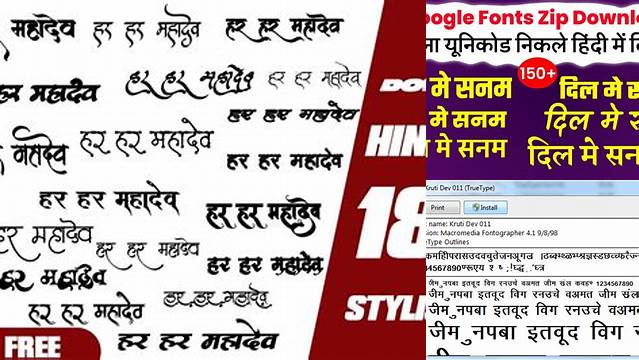
Are you looking to download Hindi TTF fonts? If you're a designer, a content creator working with Hindi text, or simply someone who loves the beauty of the Devanagari script, having a good collection of Hindi fonts is essential. In this comprehensive guide, we'll delve into everything you need to know about Hindi TTF fonts, including where to find them, how to install them, and tips for choosing the right fonts for your projects. So, guys, let's get started and explore the world of Hindi typography!
Why Hindi TTF Fonts Matter
Before we dive into the download process, let's understand why Hindi TTF fonts are so important. TTF (TrueType Font) is a common font format that ensures your text looks consistent across different devices and platforms. For Hindi, a language rich in its script and cultural heritage, the right font can make a world of difference in conveying the intended message and aesthetic. Using the right Hindi font ensures that your content is not only readable but also visually appealing. Think about it – the font you choose can evoke different emotions and set a particular tone, whether it's for a formal document, a creative design, or a social media post. The clarity and legibility provided by high-quality TTF fonts ensure that your message is communicated effectively, without any distractions caused by poorly rendered characters or inconsistent styling. Moreover, having a diverse collection of fonts allows you to add personality and flair to your work, making it stand out and capture the attention of your audience. From elegant and traditional styles to modern and playful designs, the possibilities are endless when you have access to a wide range of Hindi TTF fonts. So, whether you're designing a wedding invitation, crafting a marketing campaign, or creating educational materials, the right font can elevate your project and make a lasting impression.
Besides the big names, there are numerous smaller font foundries and marketplaces where you can discover unique and interesting Hindi fonts. Sites like Creative Market, Envato Elements, and individual font designer websites often offer hidden gems that you won't find on larger platforms. Exploring these smaller marketplaces can lead you to discover unique and specialized Hindi fonts that perfectly match your project's aesthetic. Many independent font designers and foundries focus on specific styles or languages, offering a curated selection of typefaces that cater to niche design needs. These smaller platforms often provide more personalized customer service and support, making it easier to get help with licensing, installation, or technical issues. Additionally, supporting independent designers and foundries helps to foster creativity and innovation in the font design community. Whether you're looking for a handcrafted Devanagari script, a modern geometric Hindi typeface, or a unique display font, exploring smaller font marketplaces can lead you to discover exceptional typefaces that set your work apart. So, don't limit yourself to the big names – venture out and explore the diverse world of independent font design.
How to Install Hindi TTF Fonts
Once you've downloaded your Hindi TTF fonts, the next step is to install them on your computer. The installation process is quite straightforward and similar for both Windows and macOS. Here’s a step-by-step guide:
Finding and downloading Hindi TTF fonts doesn't have to be a daunting task. With the resources and tips outlined in this guide, you're well-equipped to build a fantastic collection of fonts for your projects. Remember to choose fonts that are not only visually appealing but also legible and appropriate for your specific needs. So, go ahead and start exploring the beautiful world of Hindi typography! Have fun creating amazing designs with your new fonts!